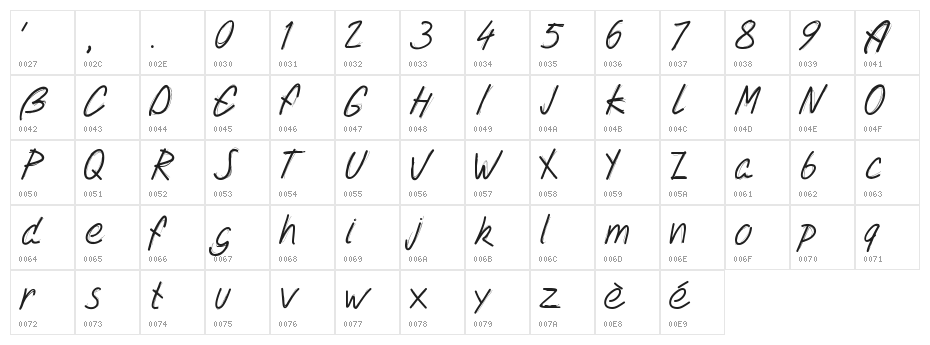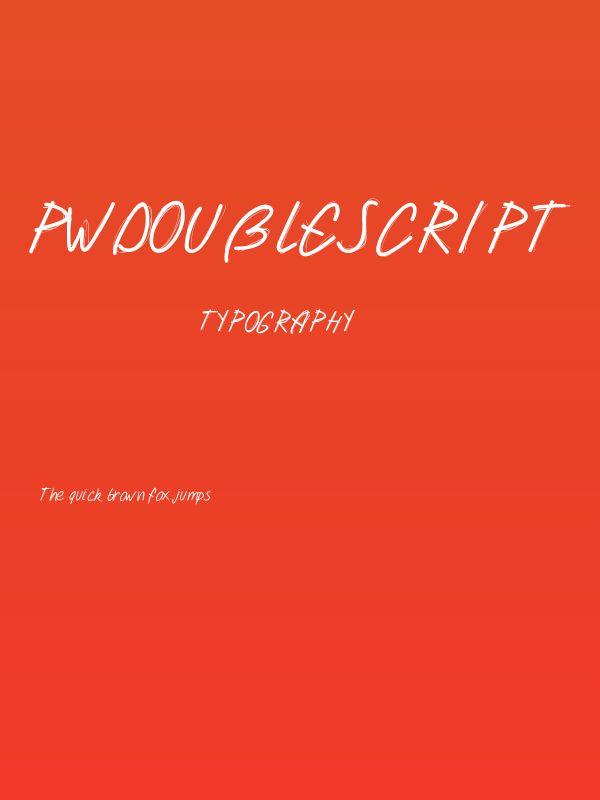
PWDoubleScript Font
| Cas d'utilisation | Logos, Headlines, Creative projects |
| Projets proposés | Ideal for greeting cards, invitations, branding, and creative projects that require a personal touch. |